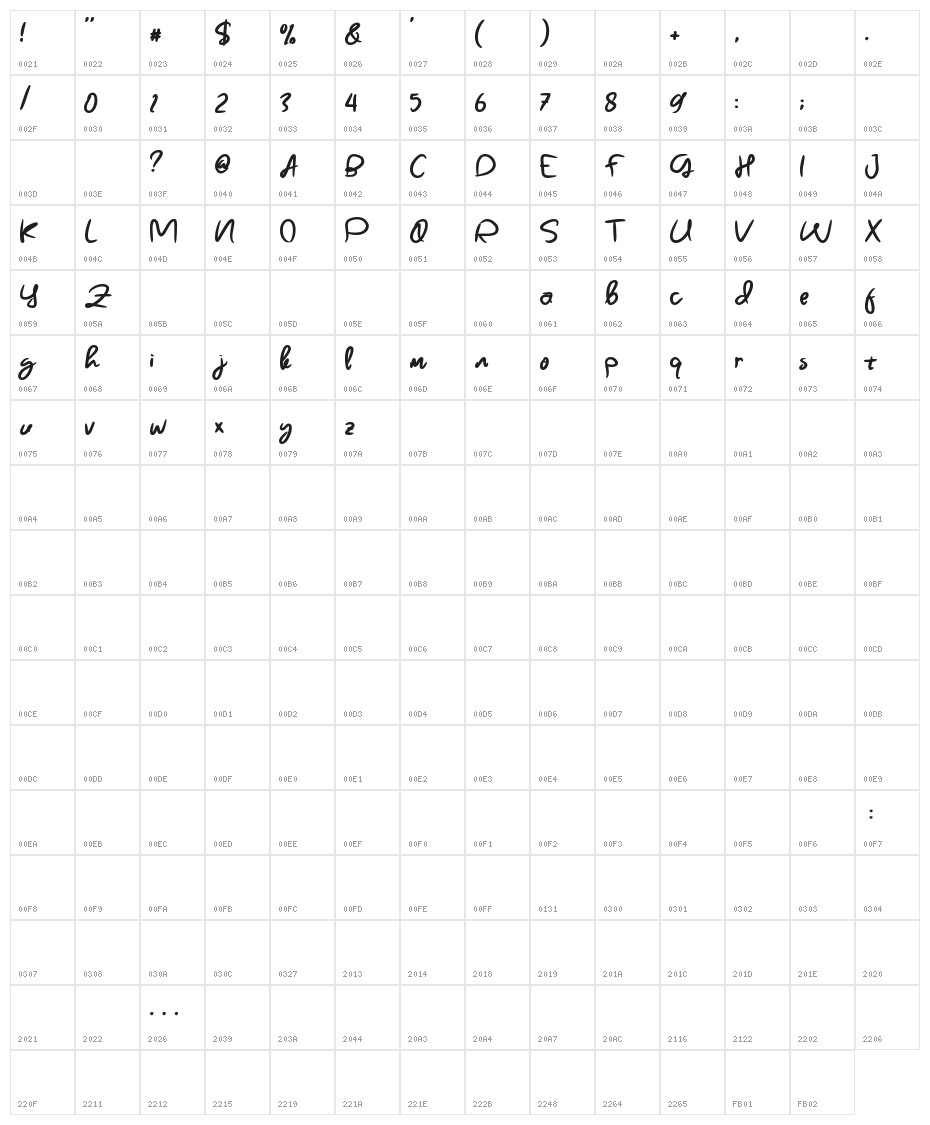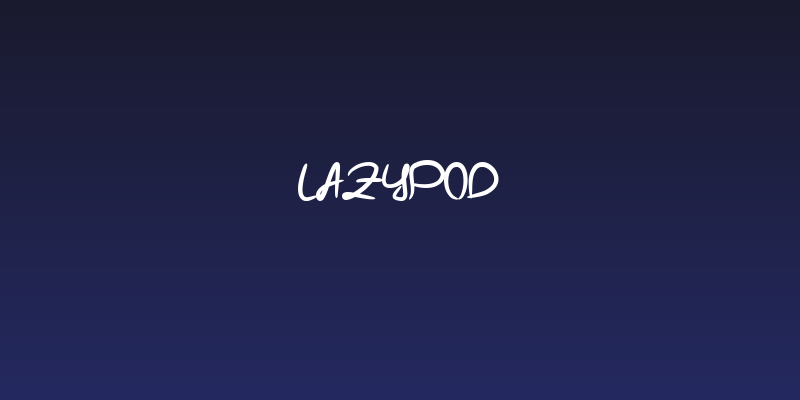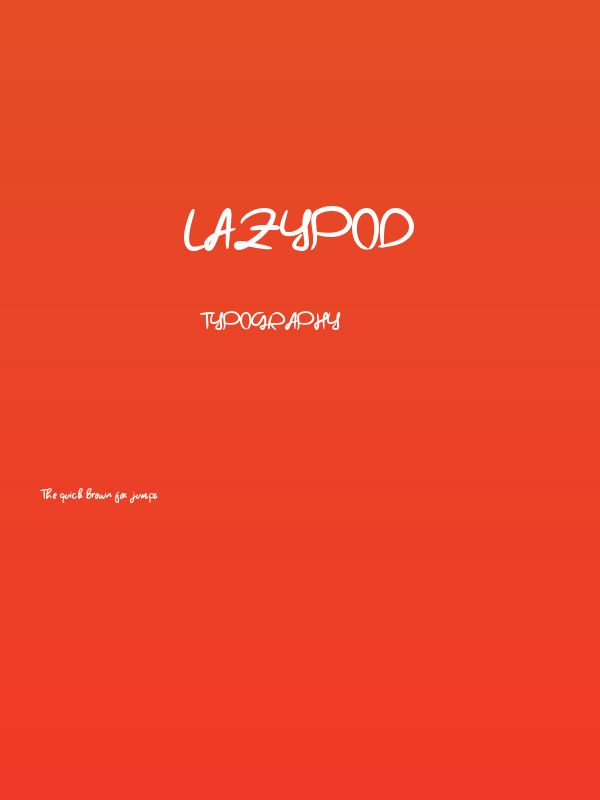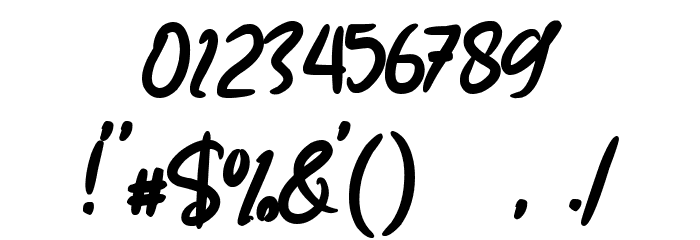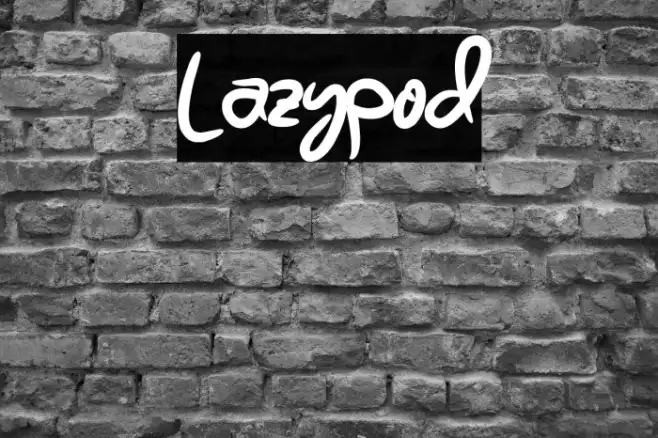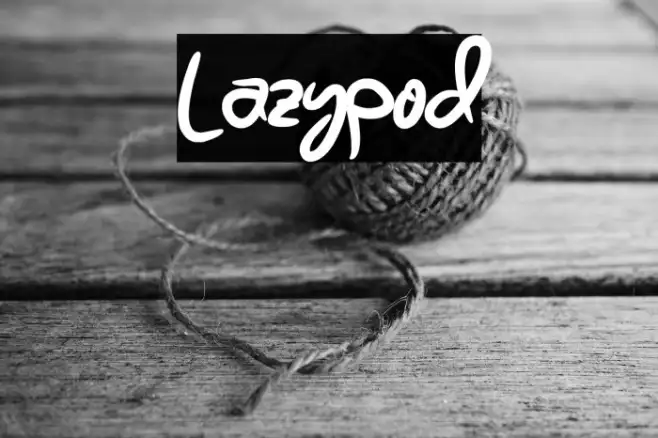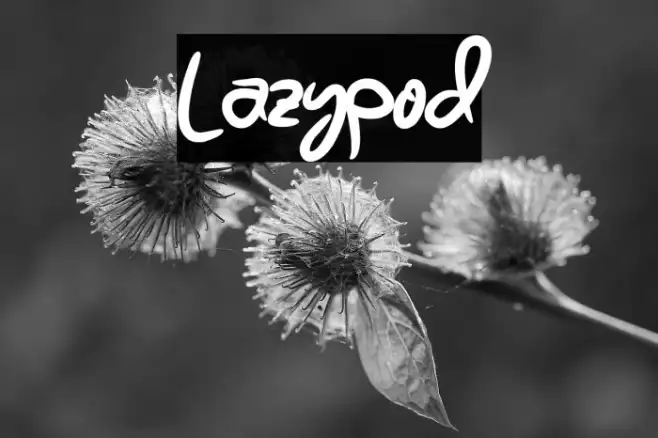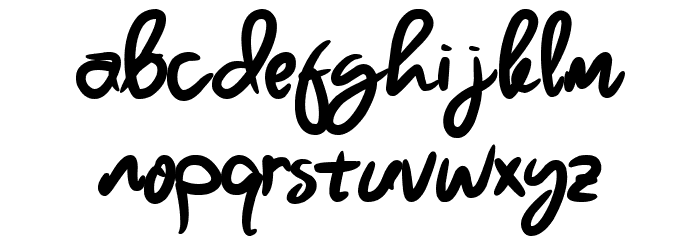
Lazypod Font
Lazypod Description
This font features a lively and dynamic handwritten style, characterized by its fluid and continuous strokes. The letters are connected in a cursive manner, giving it a personal and informal touch. The uppercase and lowercase letters maintain a consistent style, with rounded edges and a slight slant, enhancing its casual appearance. The numerals and special characters follow the same aesthetic, ensuring uniformity across all glyphs. This font exudes a sense of spontaneity and creativity, making it ideal for projects that require a personal or artistic flair.
| Overall Style | Casual, Artistic |
| Proposed Projects | Ideal for greeting cards, personal branding, artistic projects, and informal invitations. |